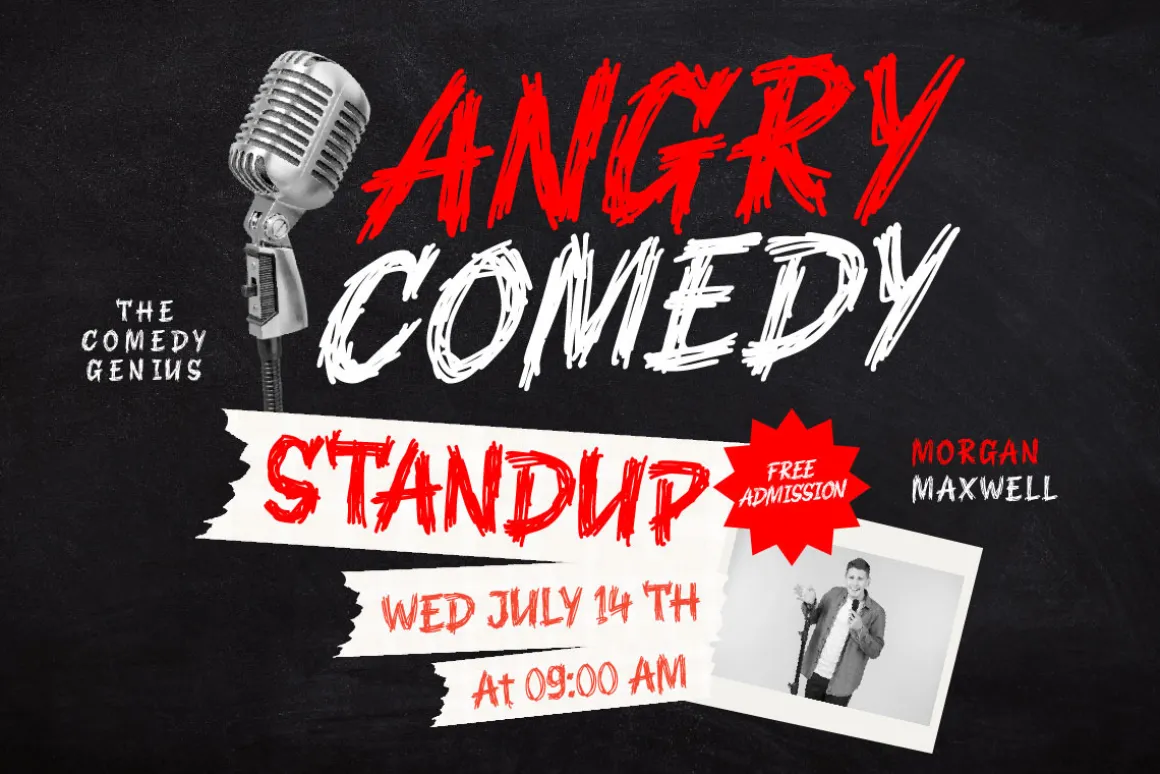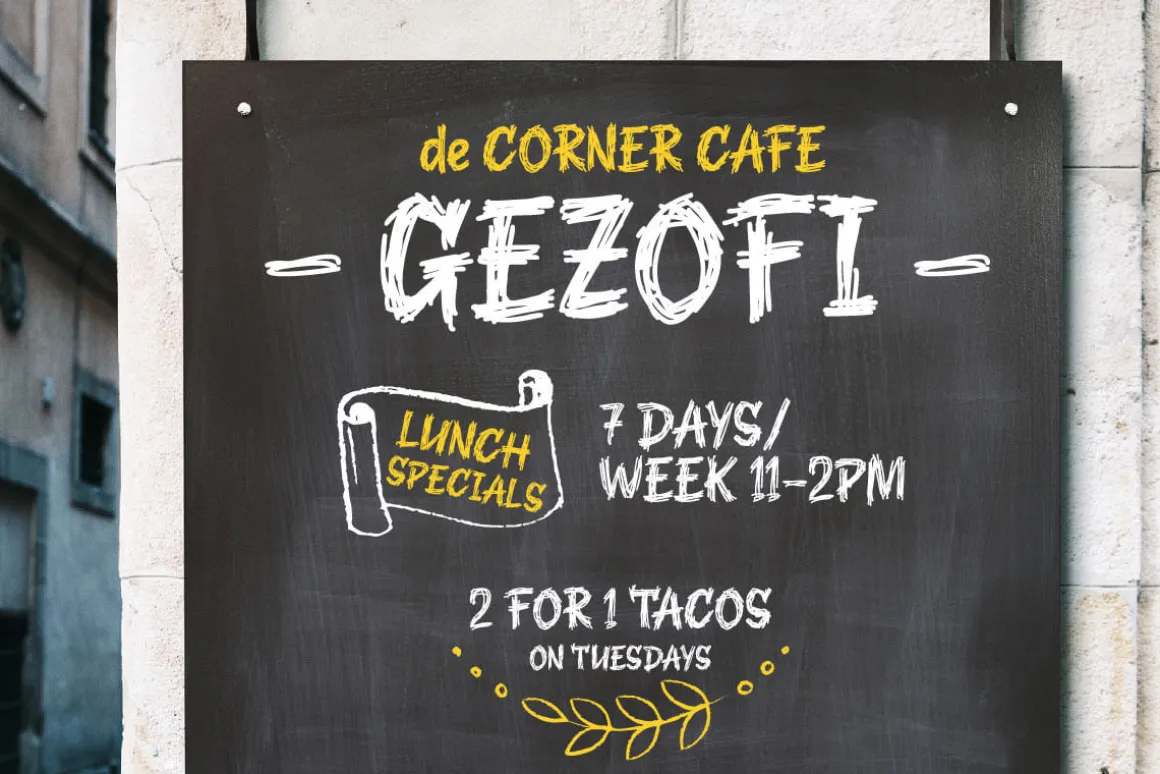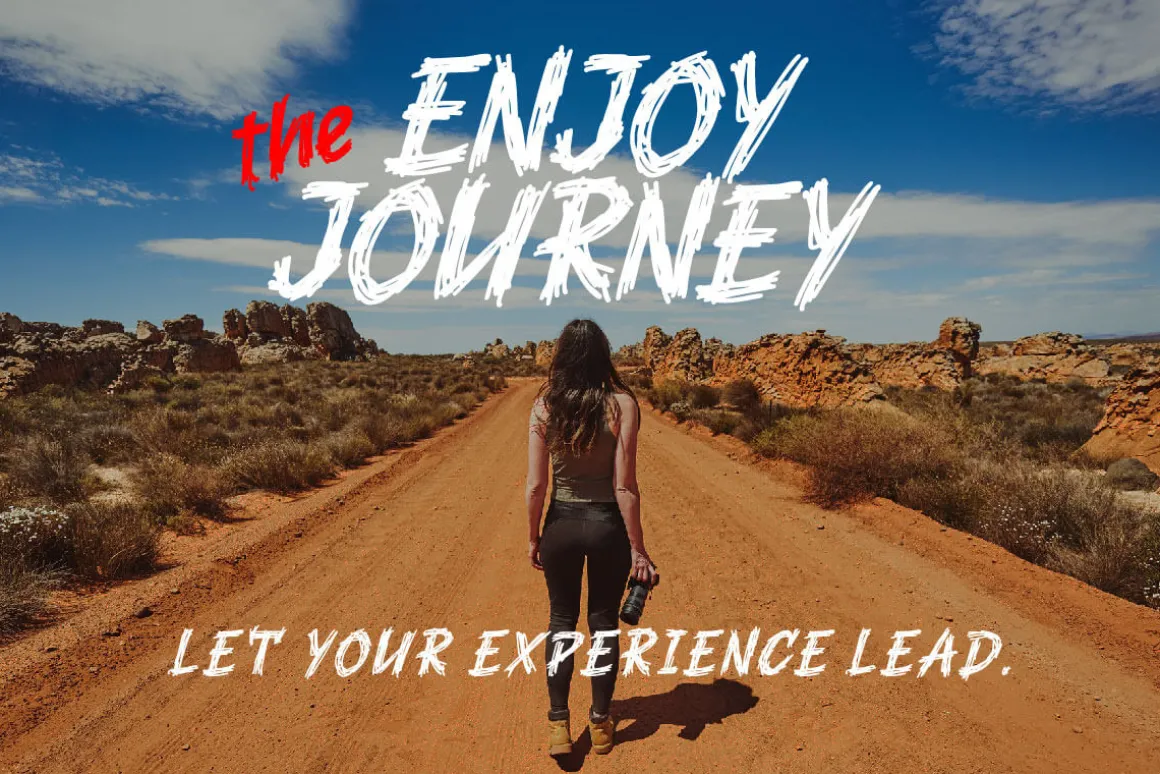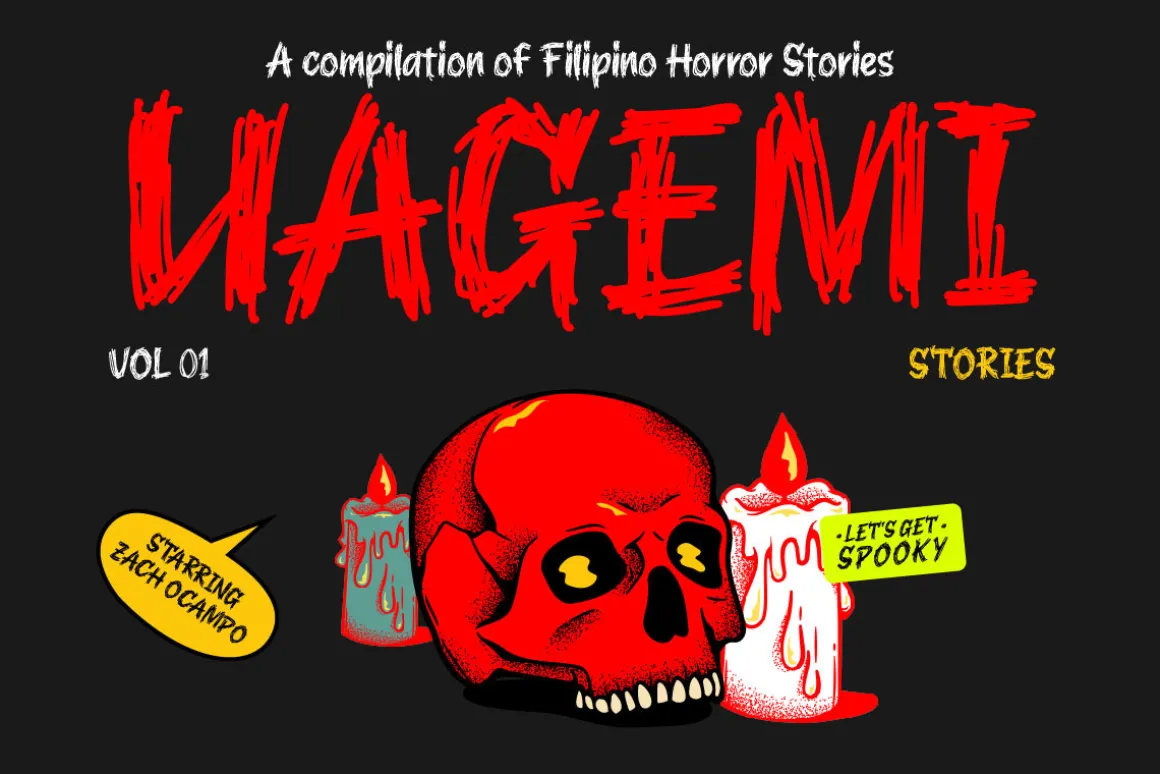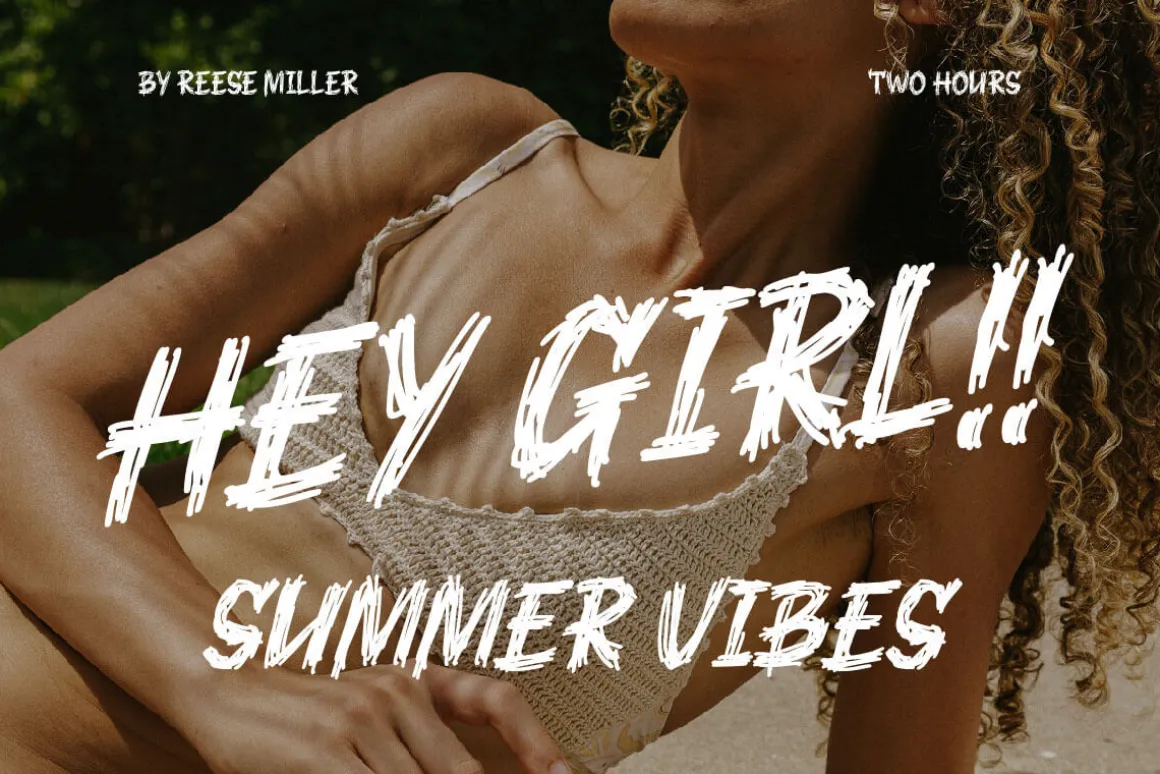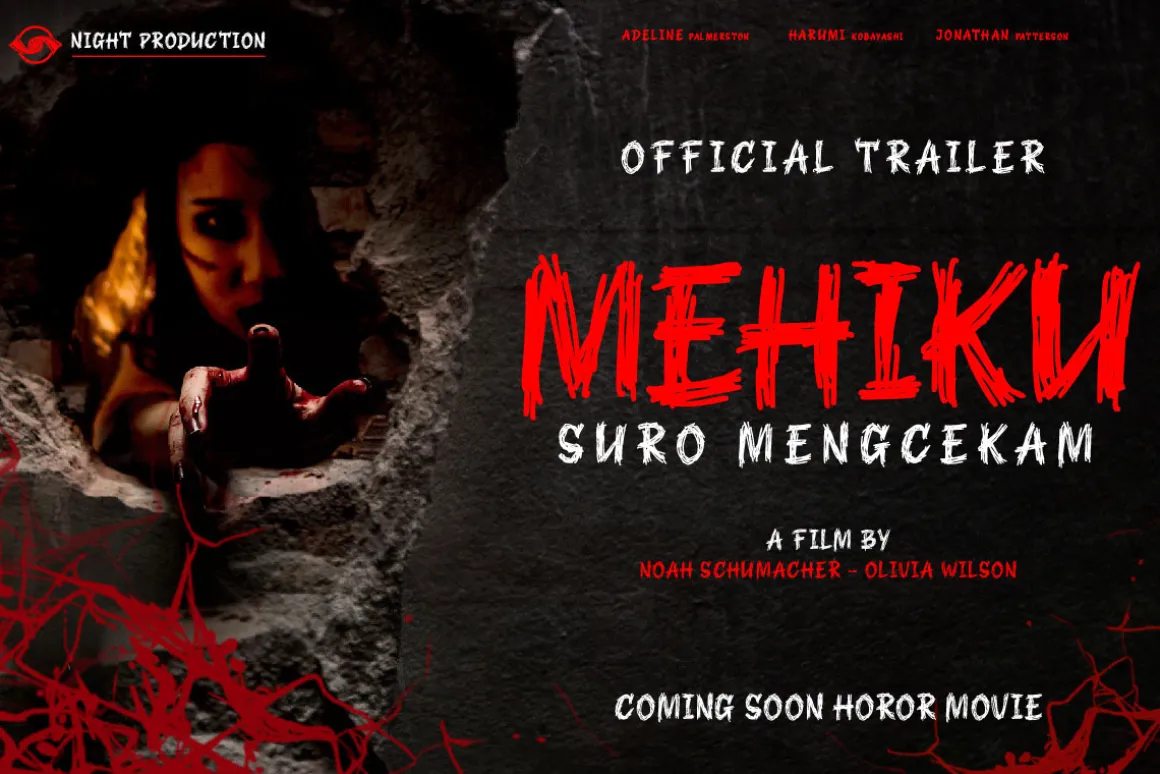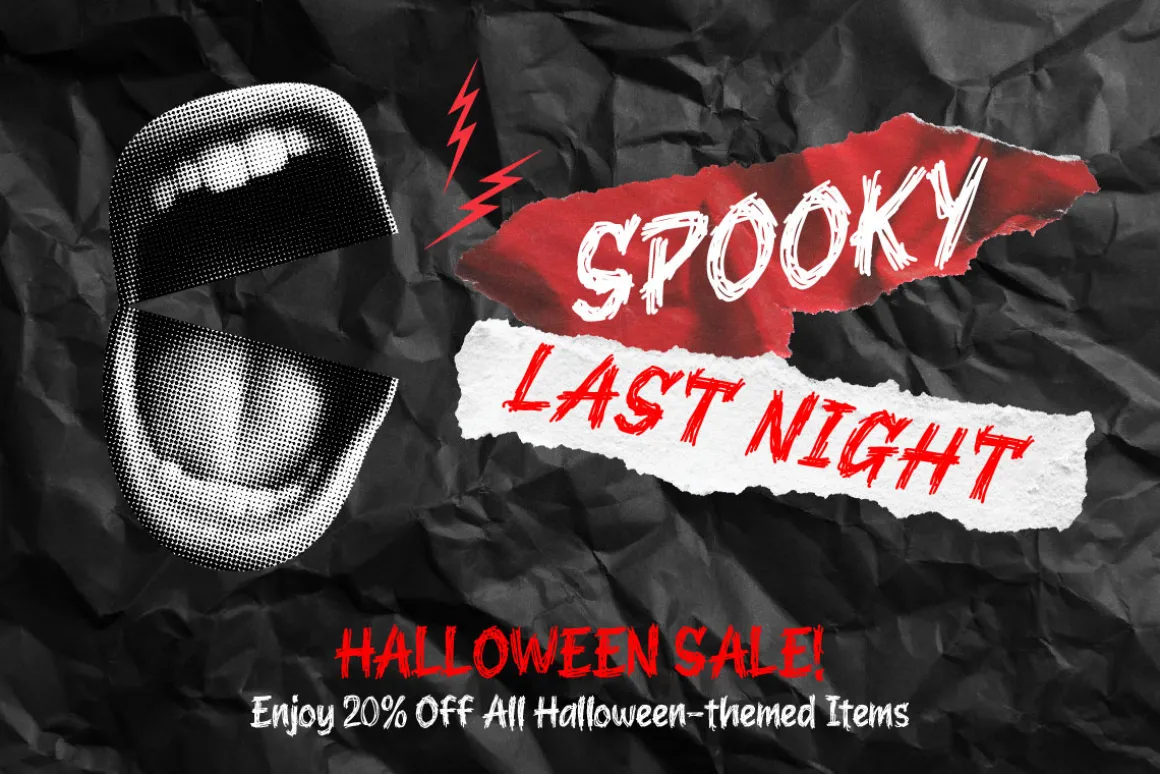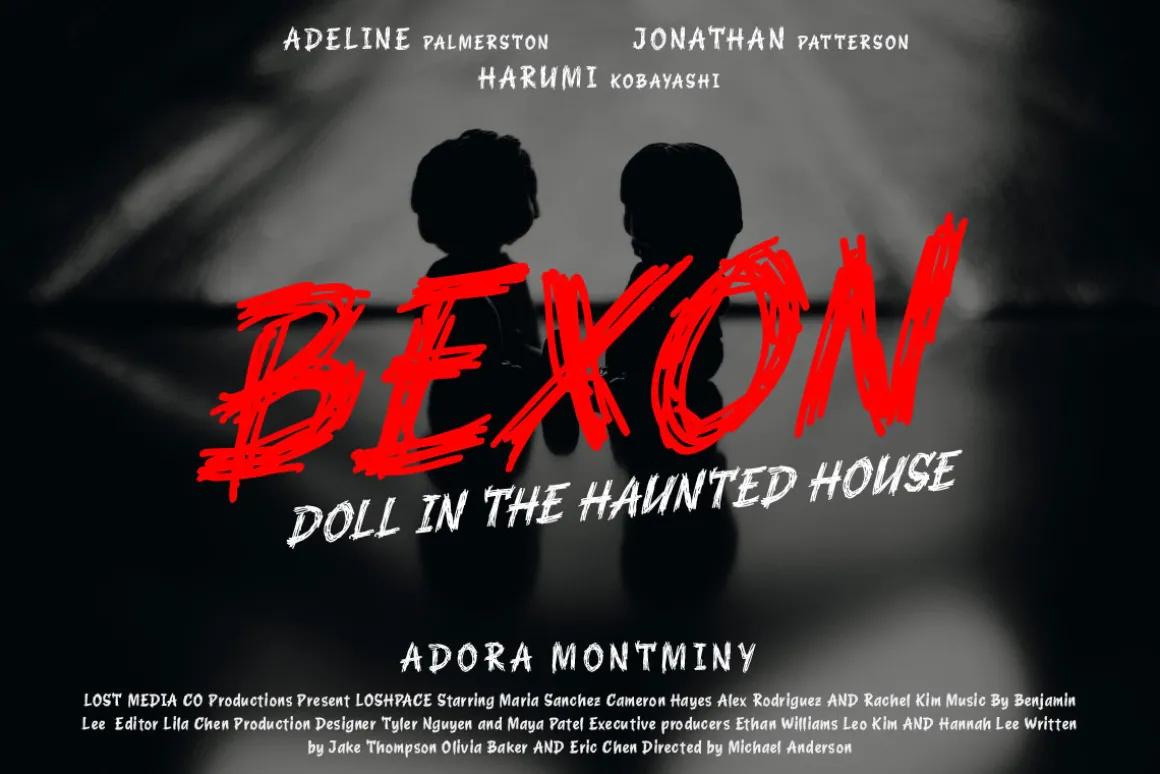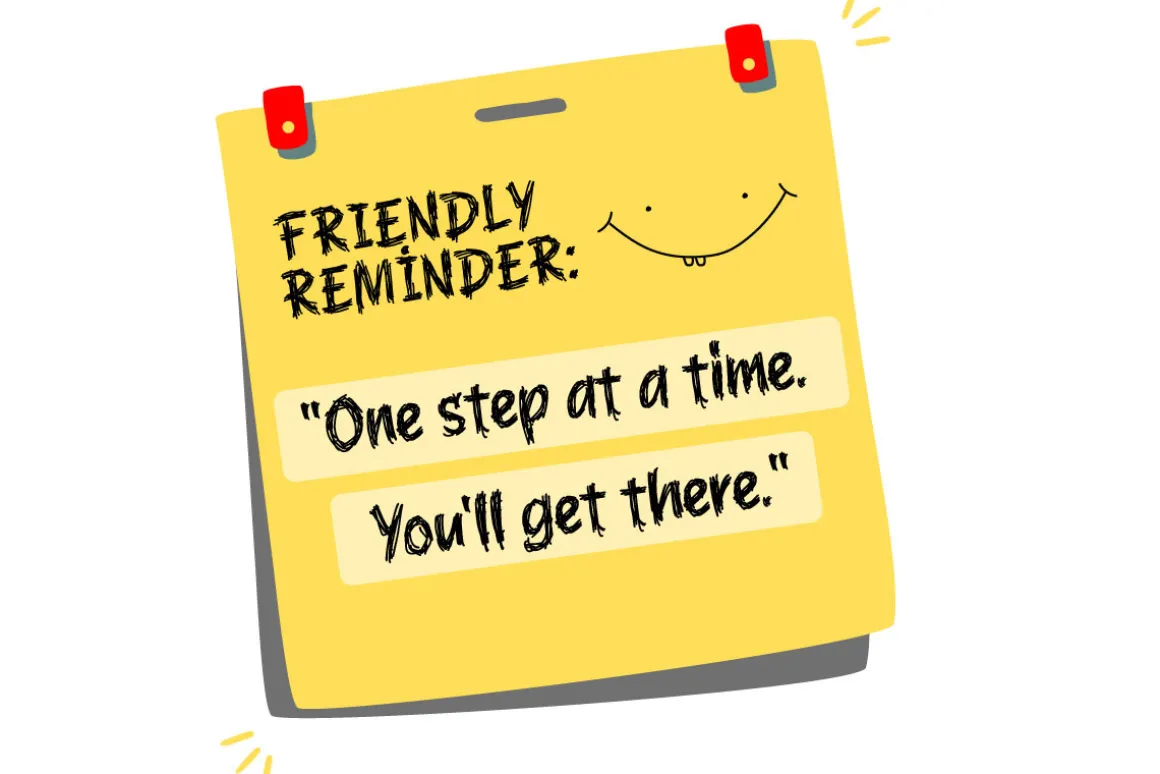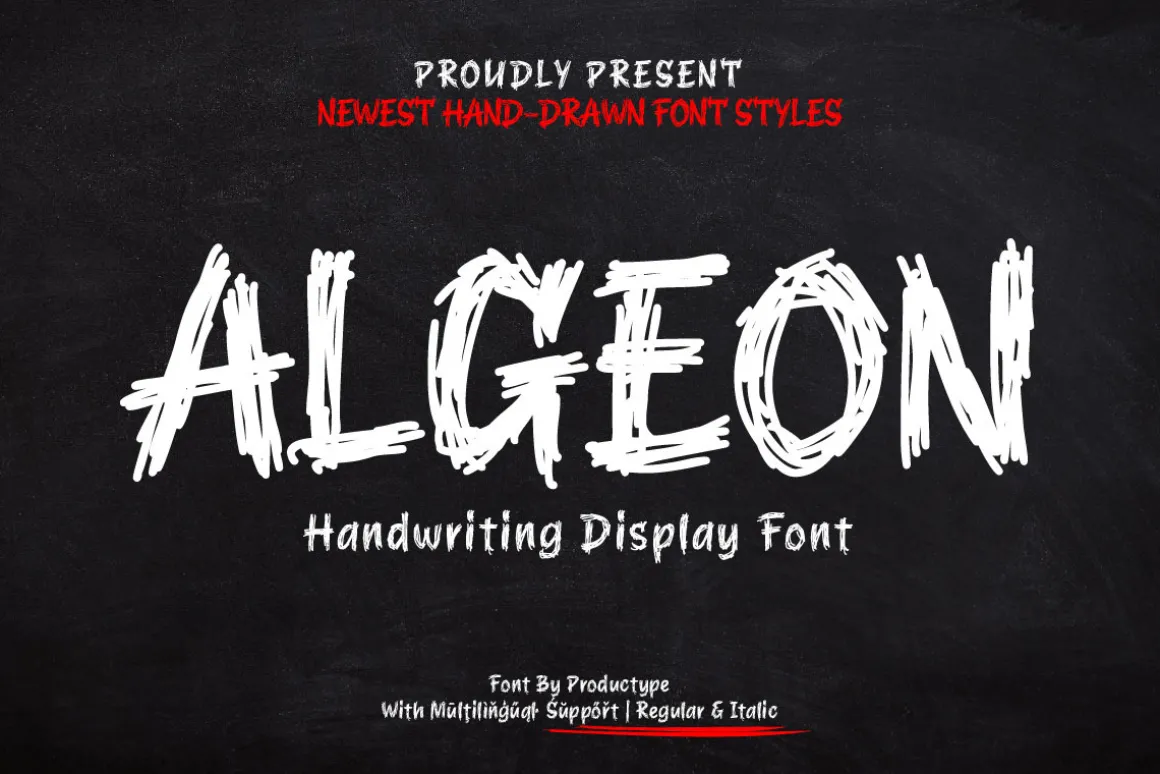
Algeon Handdrawn Display Font: An Artistic Touch in Every Letter, where uniqueness and artistic touch meet in every character. This hand-drawn display font brings warmth and intelligence to your projects.
Each letter in Algeon is designed with an artistic hand, giving it a unique and authentic feel. Algeon brings elements of hand-drawn beauty into every design, creating a relaxed and memorable look.
Algeon is the perfect choice for projects that want a hand feels full of character. Whether you are designing posters, greeting cards, or other creative elements, these fonts add a special touch to any work of art.